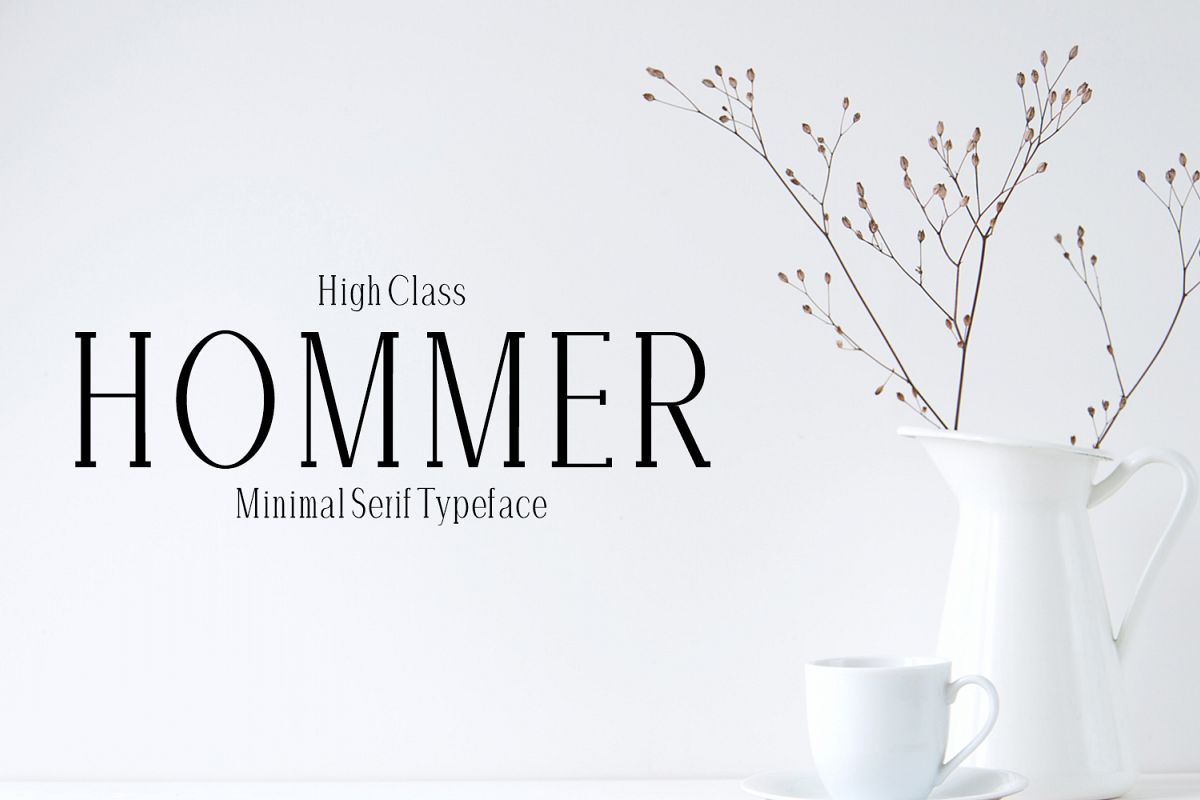
Hommer Minimal Serif Typeface
Hommer Serif Typeface is minimalist and beautiful serif typeface of 6 weights fonts, and hommer features unique and modern serif look and feel.Perfect for gorgeous logos & titles, layouts & content, or large & small scale, It looks gorgeous in all caps with a wide-set spacing if you want to try a classy look, or beautiful on its own in capital and lowercase letters for something completely timeless.Included Features:
• Font Weight: Regular, Thin, Light, Outline, Bold and Extra Bold
• Extras: Uppercase Multilingual Letters, Lowercase Multilingual Letters, Numbers & Punctuation + Alternatives.